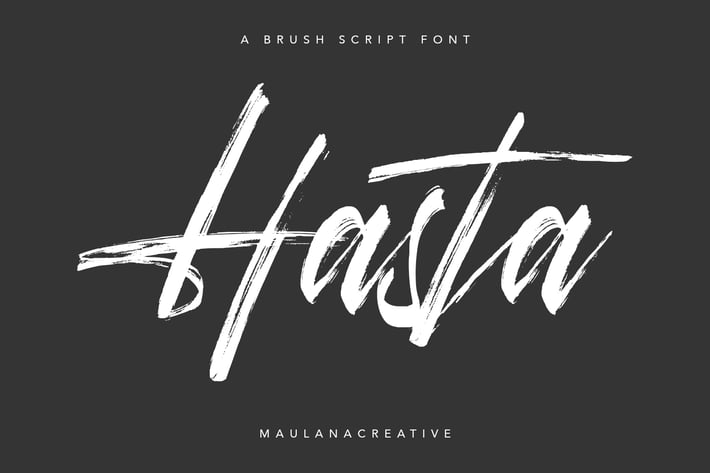
Hasta Brush Script Font
Give your designs an authentic handcrafted feel. "Hasta Brush" is perfectly suited to signature, stationery, logo, typography quotes, magazine or book cover, website header, clothing, branding, packaging design and more.